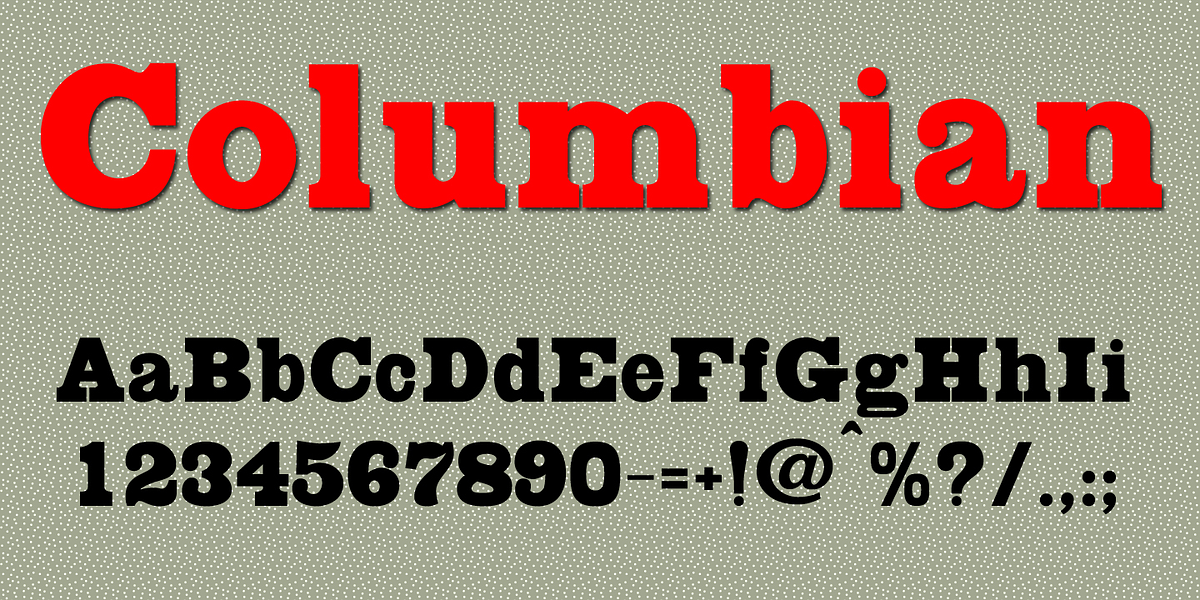
Columbian
Columbian Bold is a bold slab serif typeface inspired by 19th-century typography. It features bracketed serifs and a high contrast between thick and thin strokes, making it ideal for headlines and display text. Its design evokes a sense of classic boldness and vintage charm.